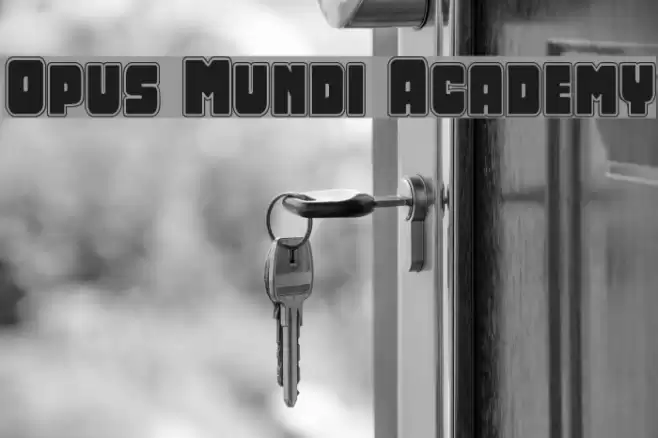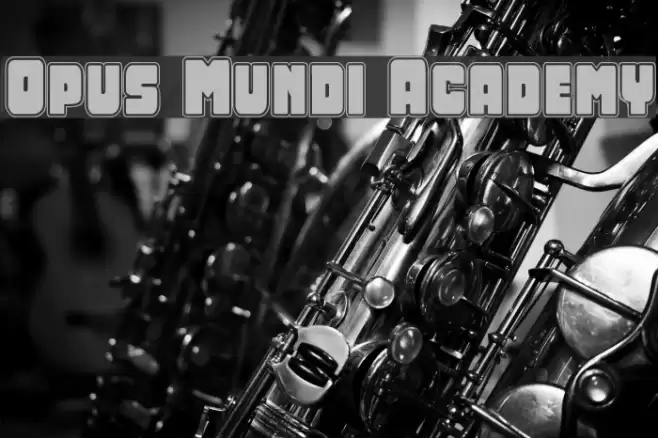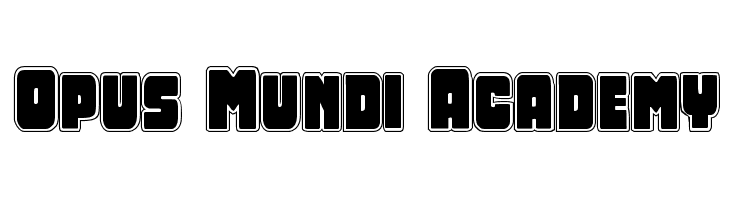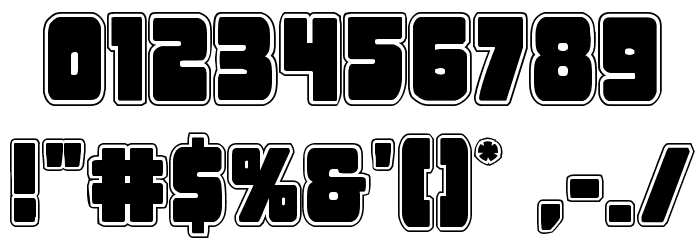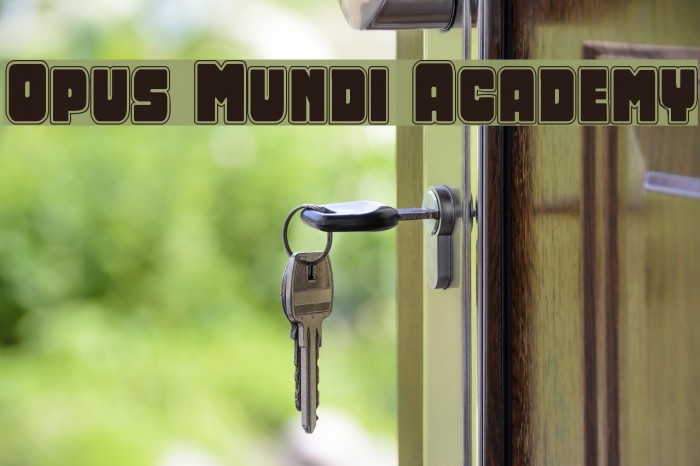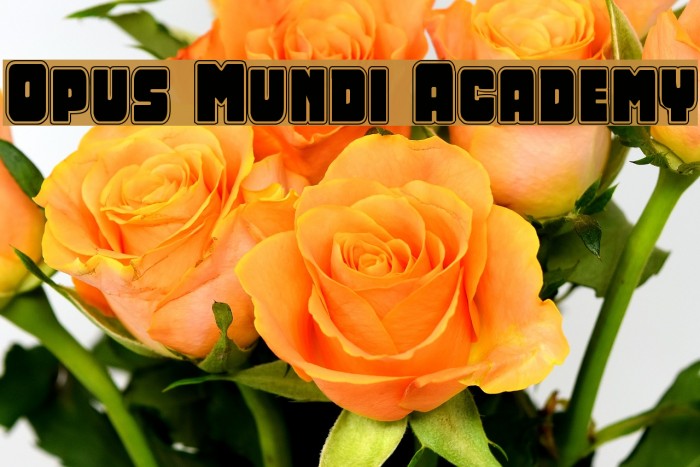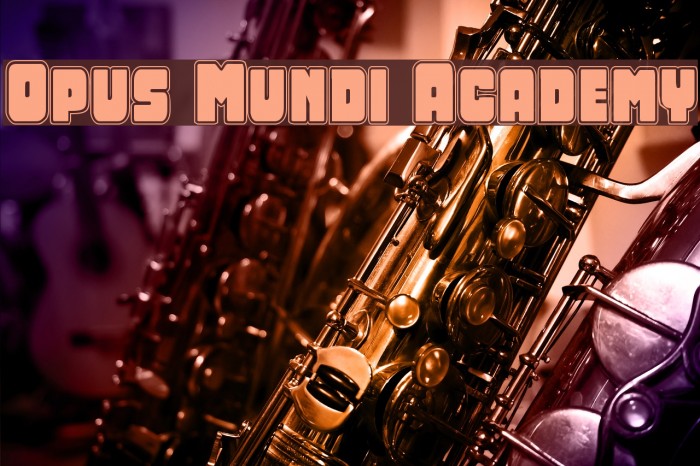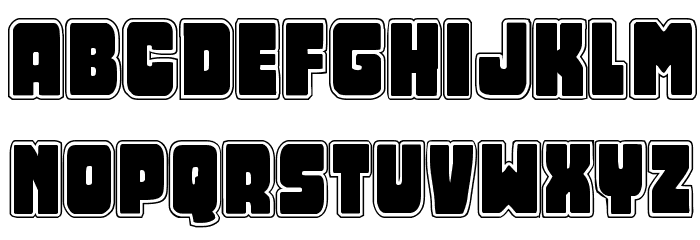
Opus Mundi Academy Font
Opus Mundi Academy Description
This font features bold, blocky characters with a distinct outline that gives it a strong, impactful presence. The uppercase and lowercase letters maintain a consistent height, enhancing its uniform appearance. The numbers and special characters are designed to match the boldness of the alphabet, ensuring a cohesive look across all elements. The thick strokes and outlined style make it ideal for attention-grabbing designs. Its geometric shapes and solid structure convey a sense of modernity and strength, making it suitable for various creative applications.
A bold, outlined font with a strong, geometric design from Uncategorized fonts.
- Proposed Projects: Ideal for posters, headlines, logos, and any design requiring a bold statement.